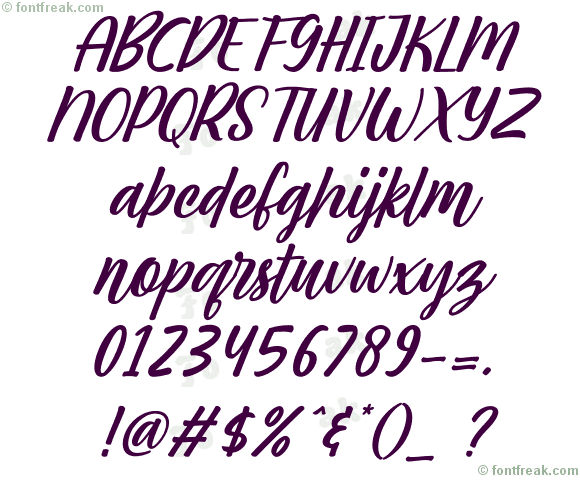
Amatemora Italic
Amatemora
Amatemora Swash
Amatemora Italic — Character Map
Amatemora — Character Map
Amatemora Swash — Character Map
About Amatemora Italic
Amatemora Italic, designed by Kong Font, is a captivating script font that embodies elegance and sophistication. This font features a distinctive italic style characterized by fluid, sweeping strokes that convey a sense of movement. The stroke weight is moderate, striking a balance between boldness and delicacy, while the contrast between thick and thin lines adds visual interest. Its generous spacing enhances readability, making it suitable for various applications. The decorative swashes at the beginning and end of certain letters lend a whimsical touch, making this font particularly engaging.
Amatemora Italic is ideal for a range of creative projects. It shines in wedding invitations, where the graceful curves and flowing forms can evoke romance and celebration. Additionally, it is perfect for movie posters, adding a cinematic flair that captures attention. Restaurant menus can benefit from its stylish appearance, making dishes feel more gourmet and appealing. Furthermore, it can be used effectively in branding materials, helping small business owners create a memorable identity that resonates with their target audience. Content creators looking to enhance their visuals will also find this font an excellent choice for social media graphics and promotional materials.